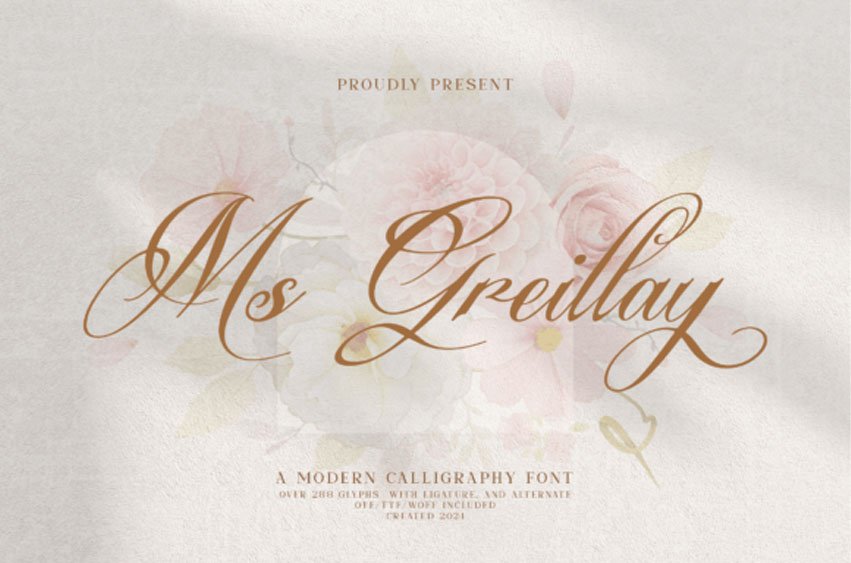
Ms Greillay Font
Ms Greillay Font is a stylish modern calligraphy font. It features smooth, flowing letters that look elegant and artistic.
Perfect for invitations, greeting cards, and personal notes, it adds a lovely touch to any design.